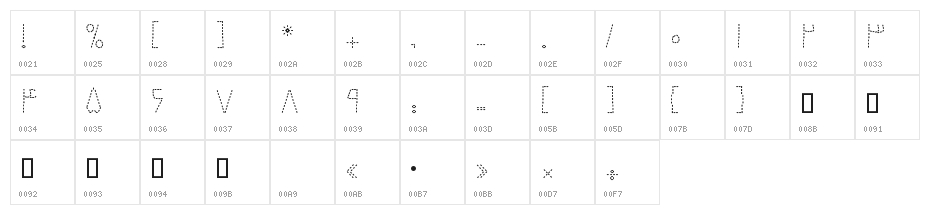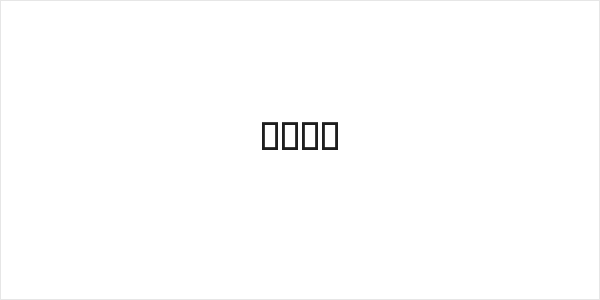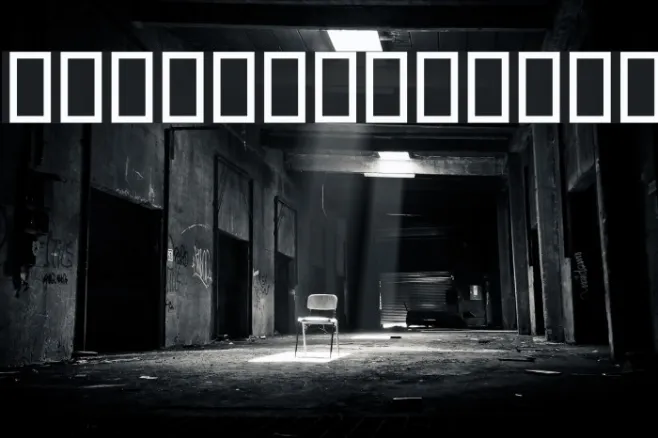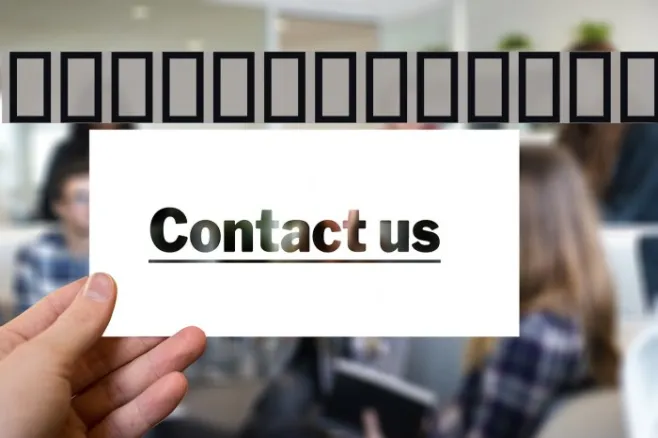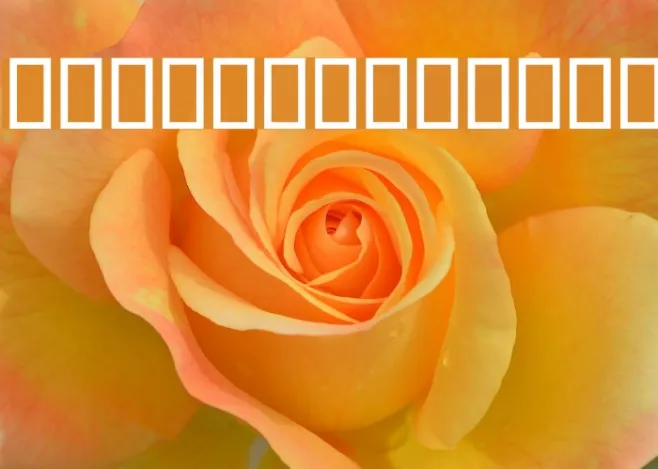
Tefl Font
Tefl Description
This font features a unique, playful design with characters formed by dotted lines, giving it a whimsical and informal appearance. The uppercase letters are bold and structured, while the lowercase letters maintain a consistent style with a slightly lighter touch. Numbers and special characters follow the same dotted pattern, ensuring uniformity across all glyphs. This font's distinctive style makes it ideal for creative and artistic projects, where a fun and casual tone is desired. The spacing between characters is normal, allowing for easy readability despite its decorative nature.
| Proposed Projects | Ideal for children's books, playful branding, greeting cards, and DIY crafts. |